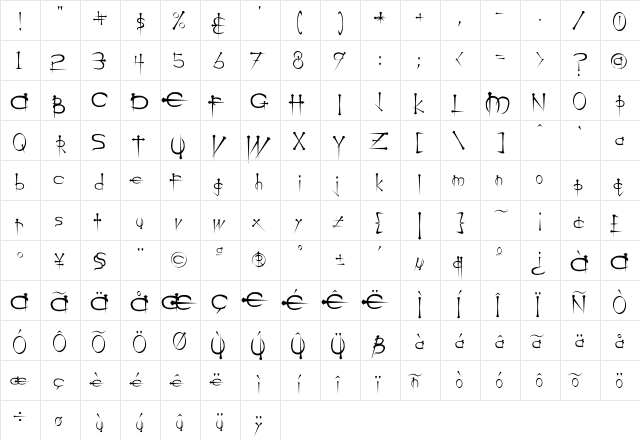
Ogilvie Medium
Design Context for Ogilvie Typeface
Ogilvie is a composed and adaptable typeface that performs quietly and consistently across a wide range of design contexts.